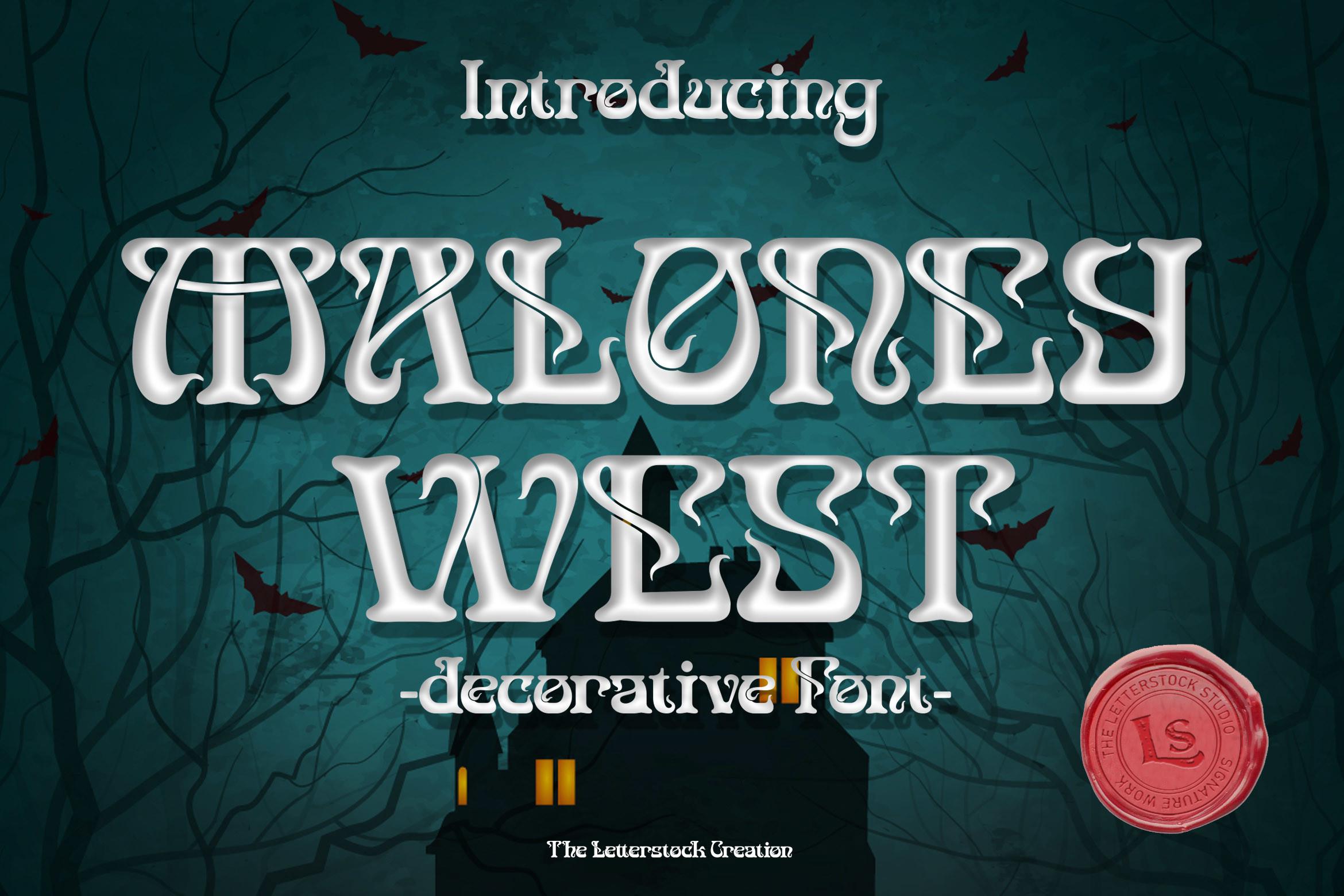
Maloney West Font Description
Inspired by a thriller movie poster design from a coffee shop, Maloney West is a handcrafted font with a natural feeling. Maloney West font is good-looking in logo, thriller movie poster, playful design concepts, labels, product packaging, invitations, advertising, and more.